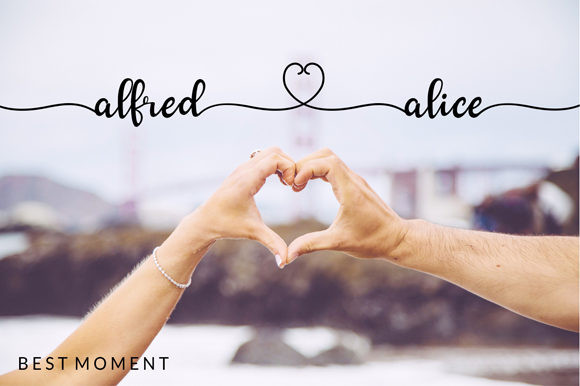
Naifah Font
Naifah is a gorgeous script font. It features amazing ligatures and heart-themed swashes. Take you Valentine’s projects to the next level with this romantic font. This font is PUA encoded which means you can access all of the amazing glyphs and swashes with ease! It also features a wealth of special features including alternate glyphs and ligatures.